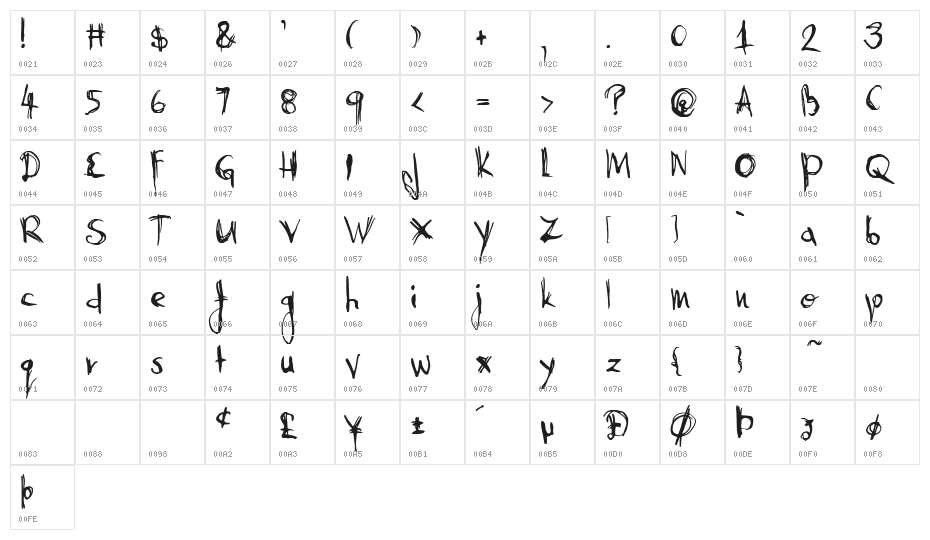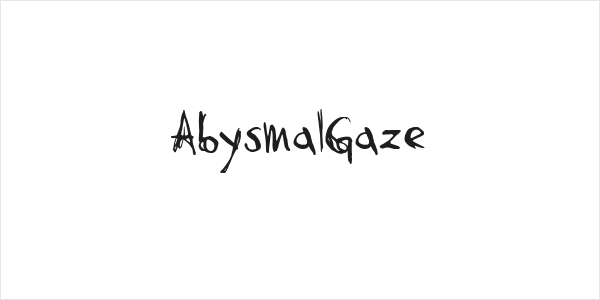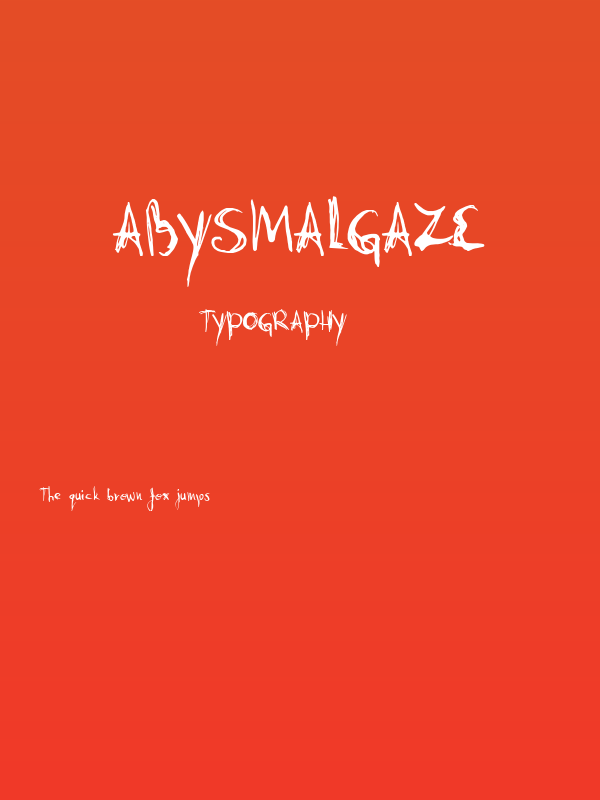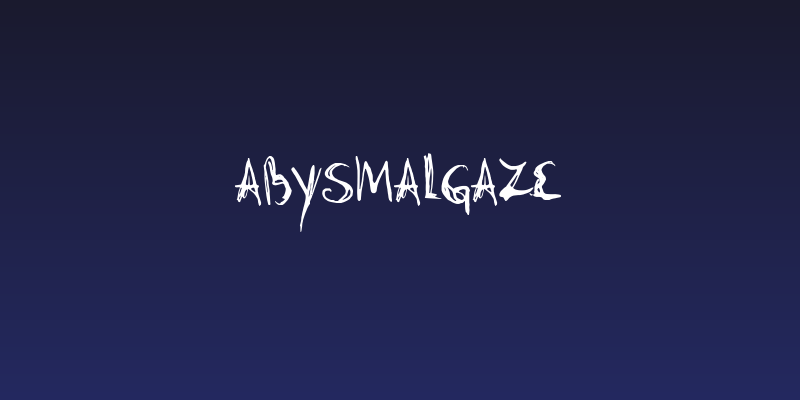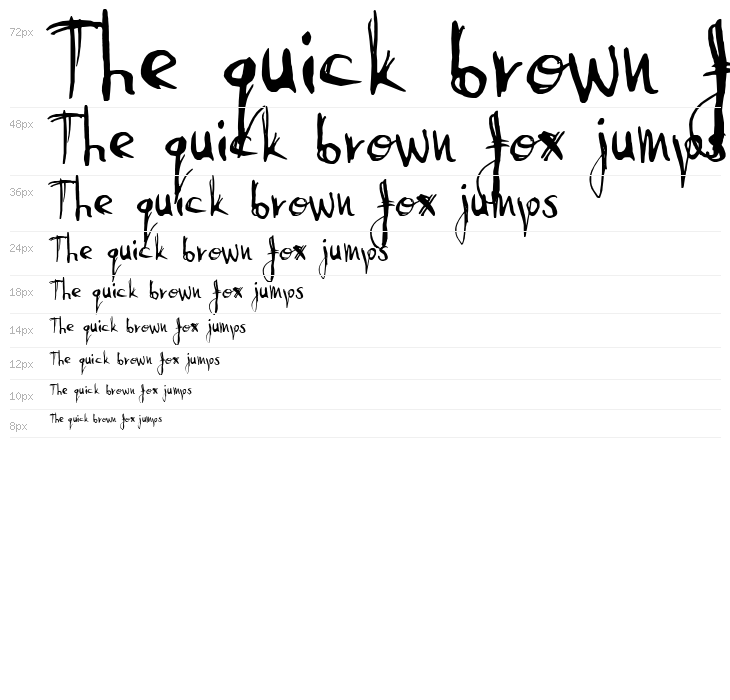
AbysmalGaze Font
AbysmalGaze Description
This font features a highly expressive and chaotic style, reminiscent of hand-drawn graffiti. The characters are irregular and jagged, with strokes that vary in thickness, creating a sense of movement and energy. The uppercase and lowercase letters are distinct, with exaggerated curves and angles that give them a unique personality. Numbers and special characters follow the same dynamic style, making the font suitable for creative and unconventional designs. The overall appearance is raw and edgy, perfect for projects that require a bold statement.
| Proposed Projects | Ideal for album covers, street art designs, edgy posters, and alternative branding. |